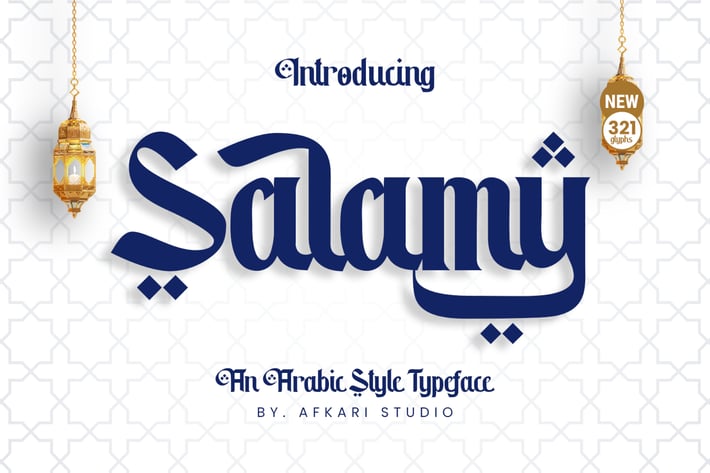
Salamy - Arabic Style Typeface
Introducing Salamy, a captivating typeface that embodies the timeless beauty of Arabic calligraphy, now reimagined for modern design projects. Dive into the graceful curves and intricate details of Salamy, meticulously crafted to infuse every text with the essence of Arabic elegance. This exquisite font isn't just a typographic choice; it's a design voyage that seamlessly blends tradition and contemporary style to elevate your creative endeavors.
Key Features:
- Uppercase, lowercase, numbers, and punctuation
- Special alternates and ligatures for added visual richness
- Multilingual support, accommodating characters like ä, ö, ü, Ä, Ö, Ü, ß, ¿, and ¡
Embark on your design journey with Salamy and experience the timeless allure of Arabic calligraphy in every stroke!